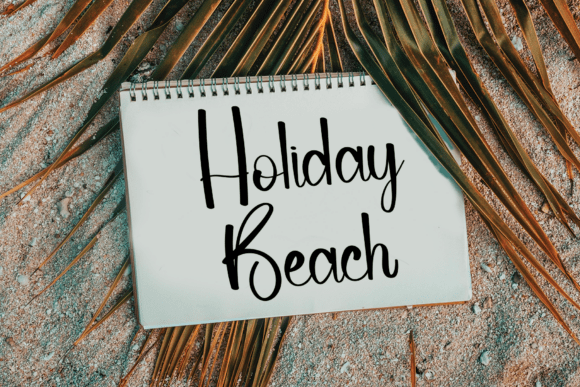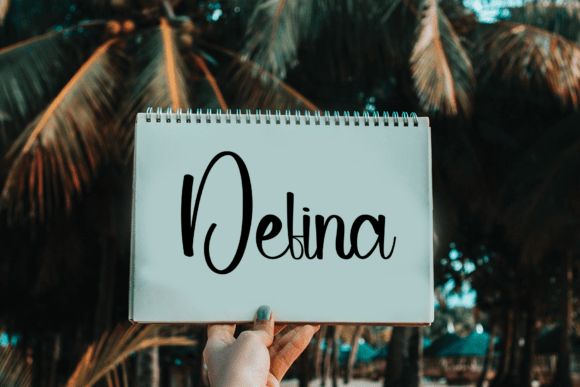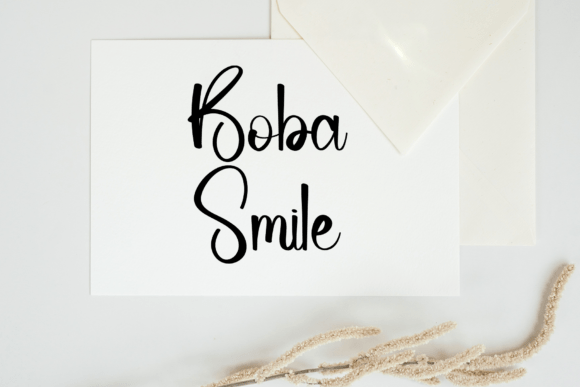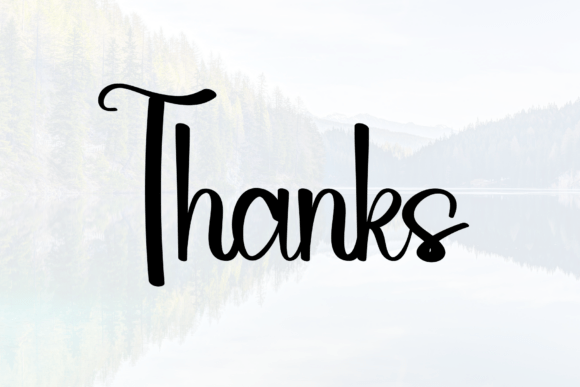
The Charm of Authentic: A Handwritten Font for Designers and Crafters
In the world of typography, a font can make or break a design project. A well-chosen font can elevate your brand, add a touch of personality to your invitations, or make your social media graphics stand out. That’s where Authentic comes in – a charming handwritten font that exudes a sense of heartfelt perfection. In this article, we’ll explore the features and benefits of Authentic, and why it’s the perfect addition to your design toolkit.
The Characteristics of Authentic
Authentic is a beautiful handwritten font that boasts smooth strokes and organic lines. Its relaxed atmosphere makes it perfect for a variety of design projects, from branding and invitations to social media graphics and more. The font’s charm lies in its imperfections, which give it a human touch that’s hard to replicate with digital fonts. Whether you’re looking for a font to add a personal touch to your designs or to create a cohesive brand identity, Authentic is an excellent choice.
Features of Authentic Font
- Smooth Strokes: Authentic’s smooth strokes give it a fluid, natural look that’s perfect for designs that require a touch of elegance.
- Organic Lines: The font’s organic lines add a touch of whimsy and playfulness, making it ideal for designs that require a bit of personality.
- Handwritten Charm: Authentic’s handwritten charm makes it perfect for designs that require a personal touch, such as invitations, greeting cards, and social media graphics.
- Versatile: The font’s versatility makes it suitable for a wide range of design projects, from branding and advertising to packaging and more.
Benefits of Using Authentic Font
So, why choose Authentic for your design projects? Here are just a few benefits of using this charming handwritten font:
- Adds a Personal Touch: Authentic adds a personal touch to your designs, making them more relatable and engaging.
- Creates a Cohesive Brand Identity: The font’s unique charm and character make it perfect for creating a cohesive brand identity that sets you apart from the competition.
- Easy to Read: Authentic is easy to read, even at small sizes, making it perfect for designs that require a lot of text.
- Flexible: The font’s flexibility makes it suitable for a wide range of design projects, from digital designs to print materials.
Design Project Ideas Using Authentic Font
So, what design projects are perfect for Authentic? Here are a few ideas to get you started:
- Branding: Use Authentic to create a cohesive brand identity that reflects your brand’s personality and values.
- Invitations: Add a personal touch to your invitations with Authentic’s charming handwritten charm.
- Social Media Graphics: Make your social media graphics stand out with Authentic’s unique and playful character.
- Greeting Cards: Use Authentic to create beautiful and heartfelt greeting cards that are sure to impress.
Tips for Using Authentic Font Effectively
To get the most out of Authentic, here are a few tips to keep in mind:
- Use it Sparingly: Use Authentic sparingly to add a touch of personality to your designs.
- Pair it with Other Fonts: Pair Authentic with other fonts to create a unique and visually appealing design.
- Experiment with Colors: Experiment with different colors to find the perfect combination that complements Authentic’s charm.
In conclusion, Authentic is a charming handwritten font that’s perfect for designers and crafters looking to add a touch of personality to their designs. Its smooth strokes, organic lines, and handwritten charm make it a versatile font that’s suitable for a wide range of design projects. Whether you’re looking to create a cohesive brand identity, add a personal touch to your invitations, or make your social media graphics stand out, Authentic is an excellent choice. So why not give it a try and see the difference it can make in your designs?